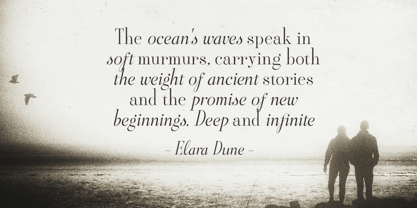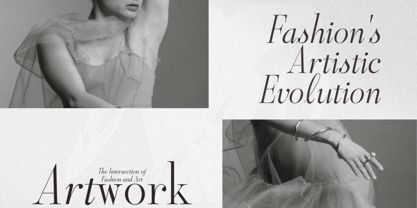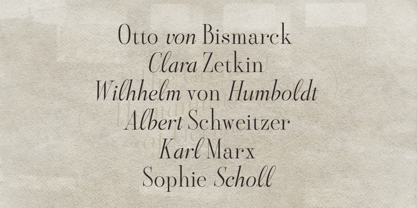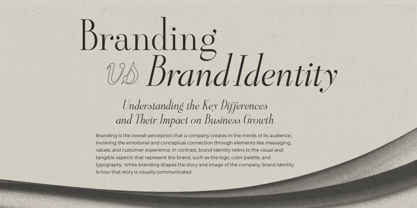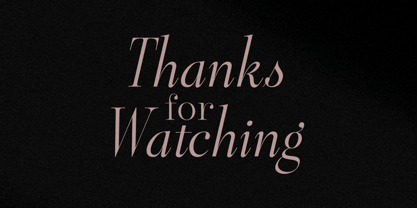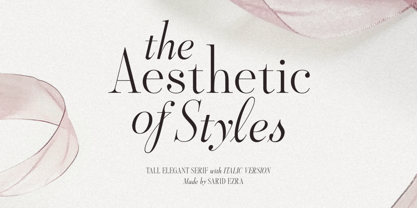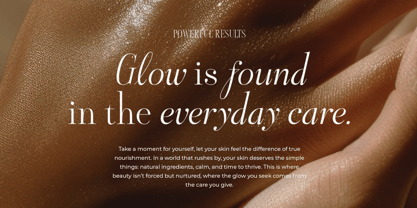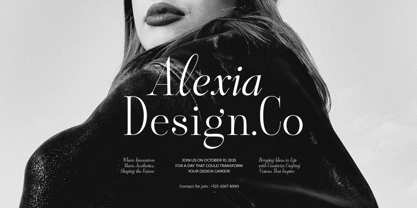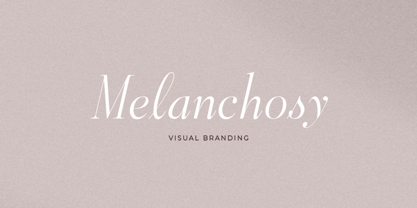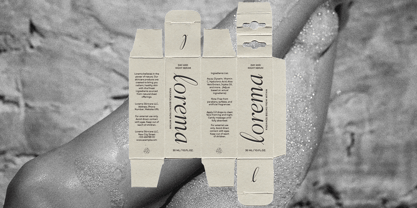
Aesthetic Styles
von Sarid Ezra
Die Schriftfamilie Aesthetic Styles wurde von Sarid Ezra entworfen und von Sarid Ezra veröffentlicht. Aesthetic Styles enthält 2 Stile und Familienpaketoptionen.
Aesthetic Styles is a classic tall serif with elegant and minimalist looks that comes with stylish italic version. You can use this font for various purposes such as branding, quotes, or wedding invitations. Most importantly, it's highly versatile and pairs well with both script and sans-serif fonts. This font also support multi language.